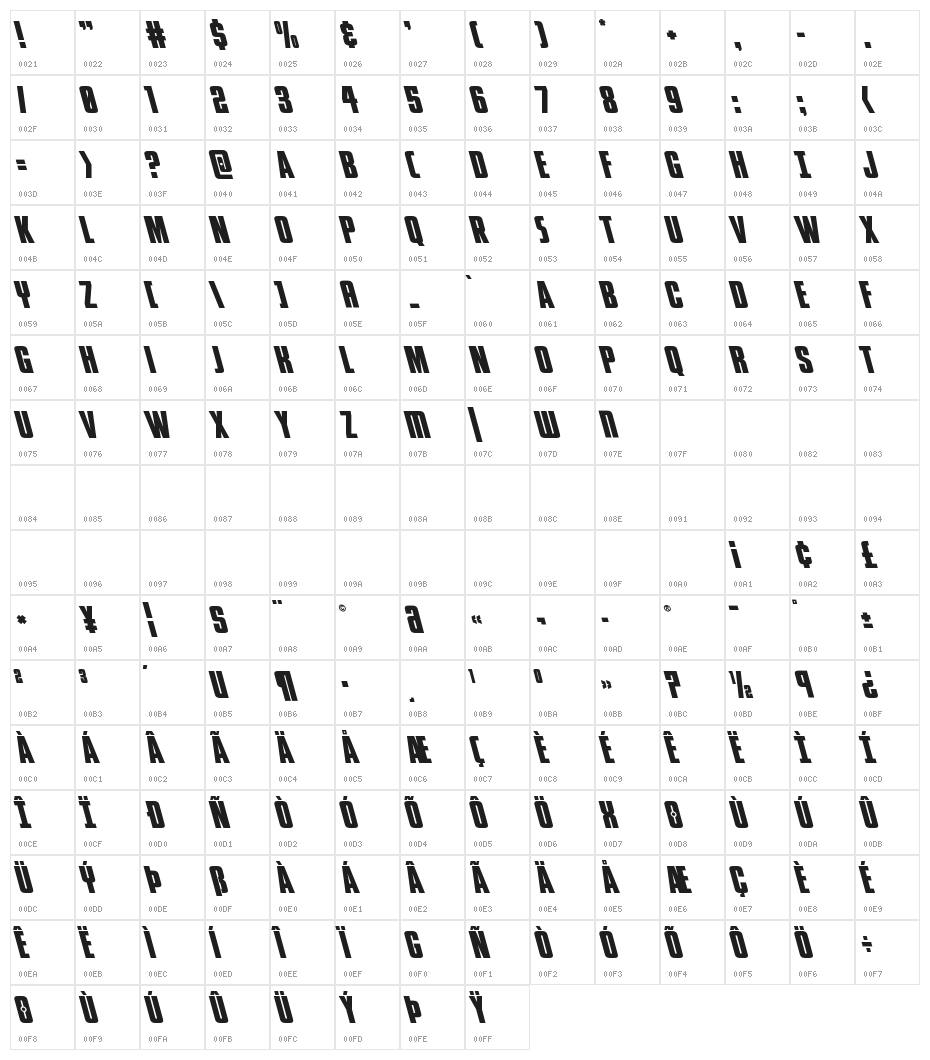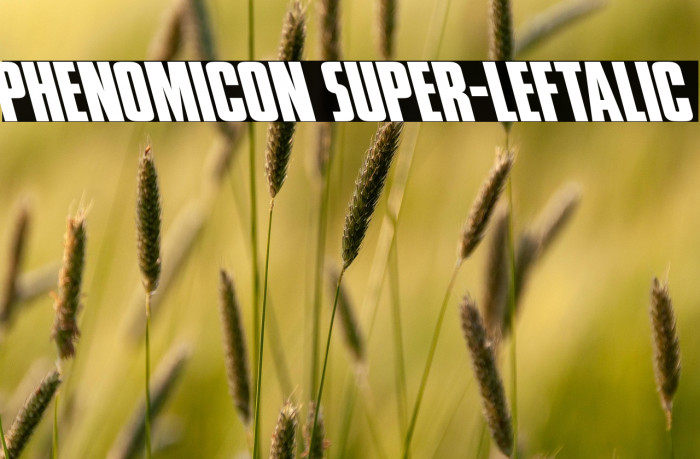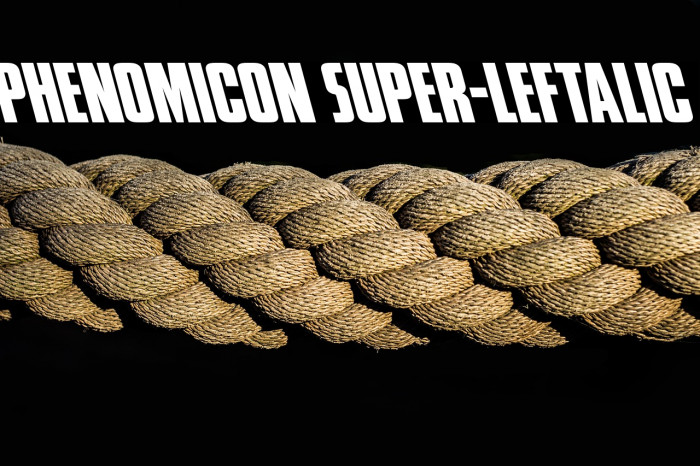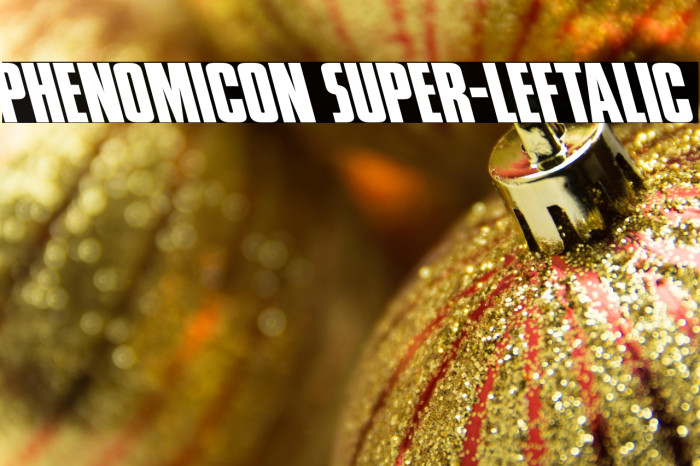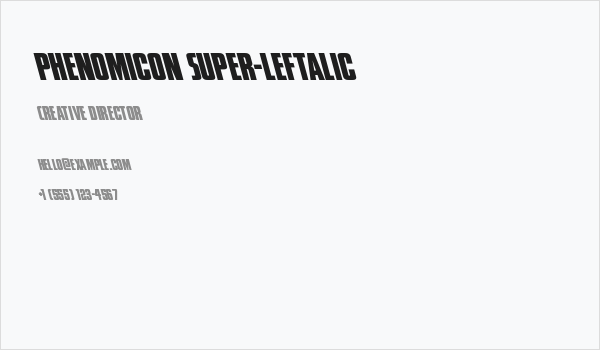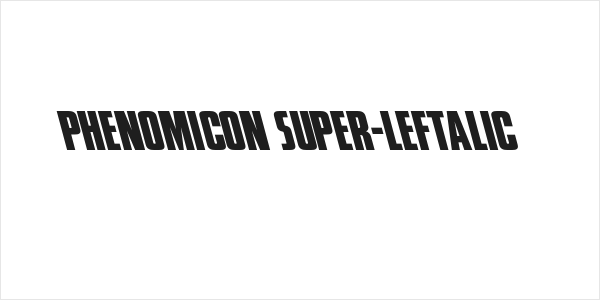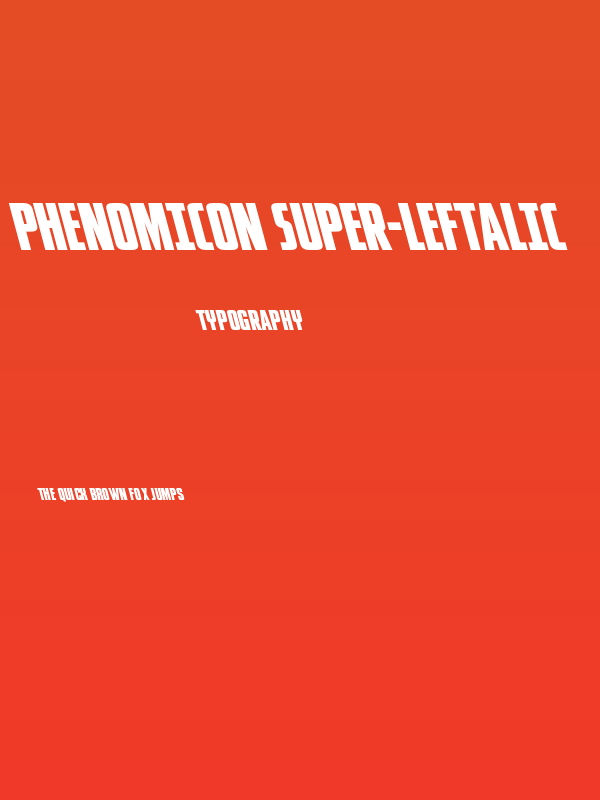
Phenomicon Super-Leftalic Font
Phenomicon Super-Leftalic Description
This bold and dynamic font features a strong, angular design with a pronounced leftward slant, giving it a sense of motion and urgency. The characters are tightly spaced, enhancing the compact and impactful appearance. The uppercase letters are particularly striking, with sharp edges and a solid presence. The numerals and special characters maintain the same boldness and slant, ensuring consistency across all elements. This font's high contrast in stroke thickness adds to its dramatic and eye-catching style, making it ideal for attention-grabbing designs.
Proposed ProjectsIdeal for sports branding, action movie posters, dynamic logos, and event promotions.